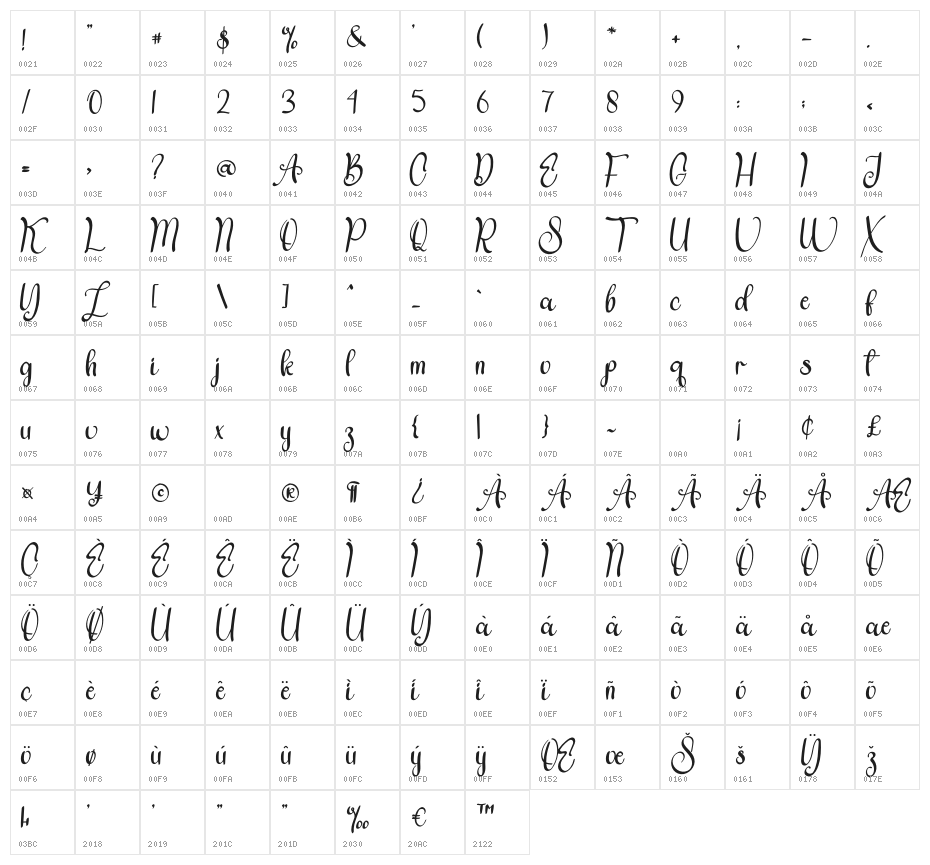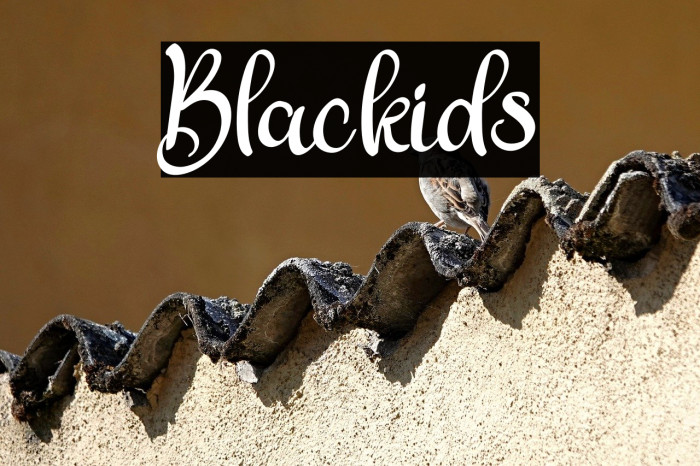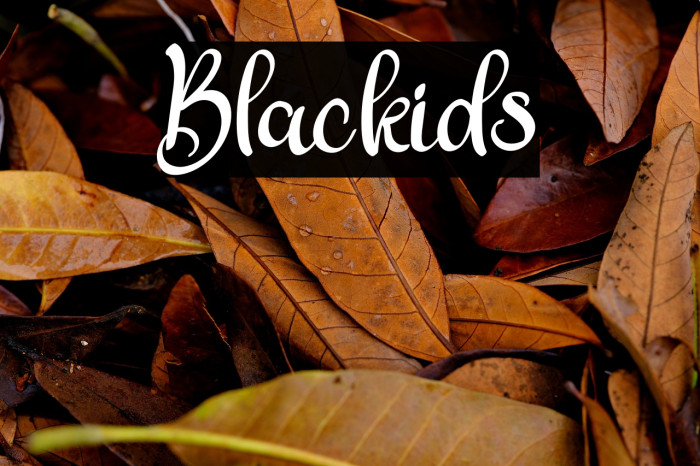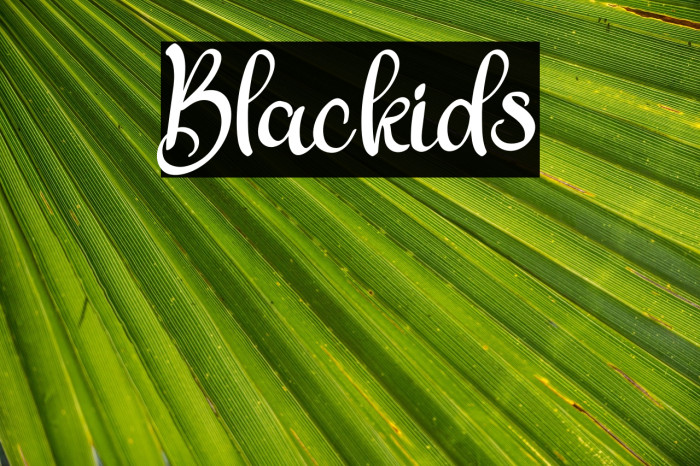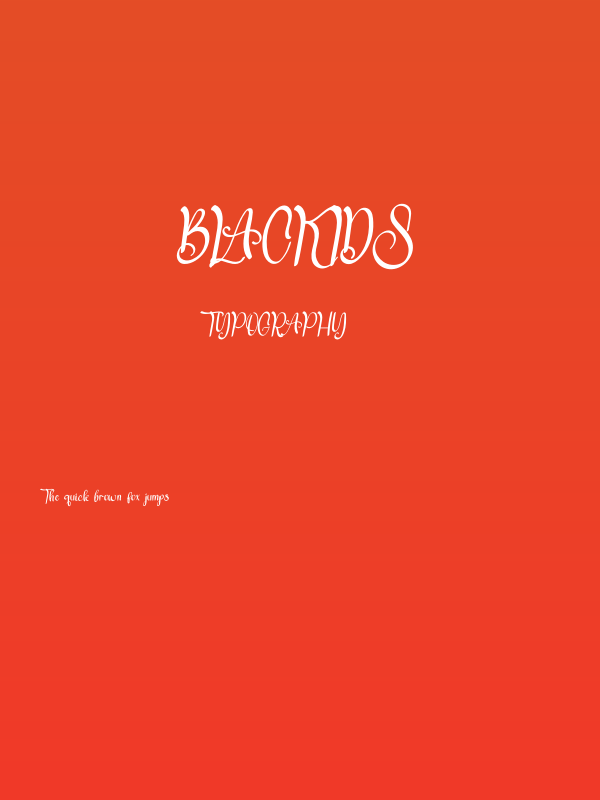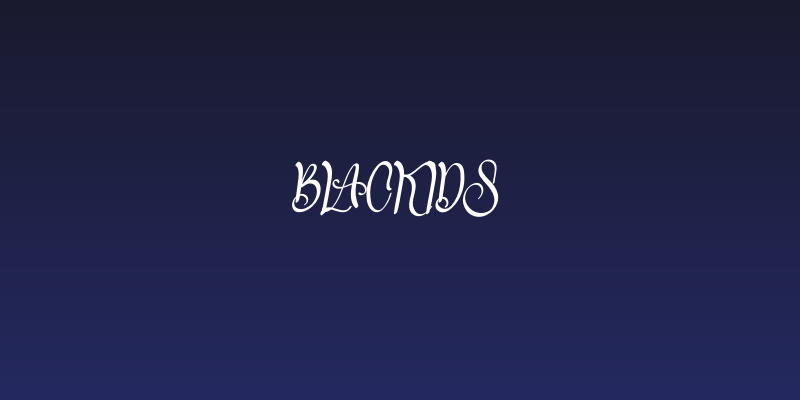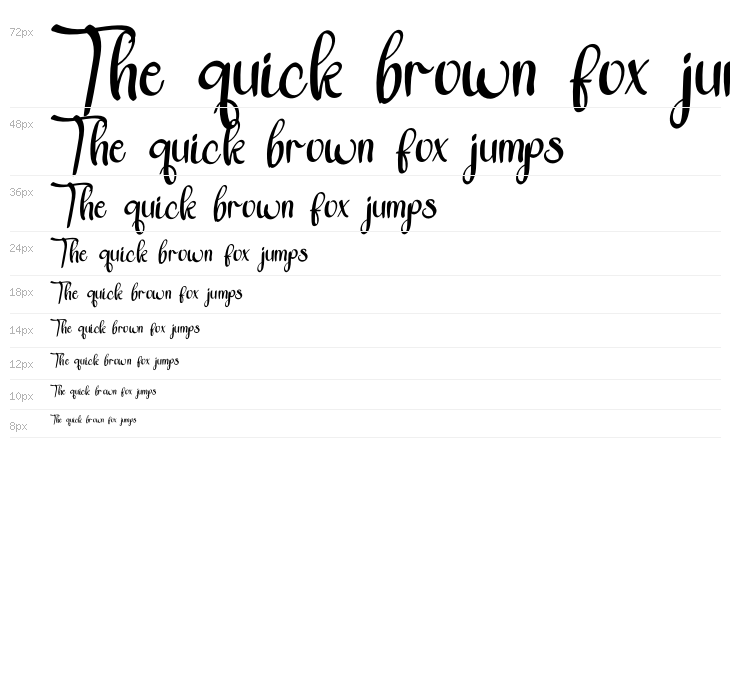
Blackids Font
Blackids Description
A decorative script font with flowing, cursive letters and high contrast between thick and thin strokes.
| Proposed Projects | Invitations, greeting cards, logos, decorative headings. |